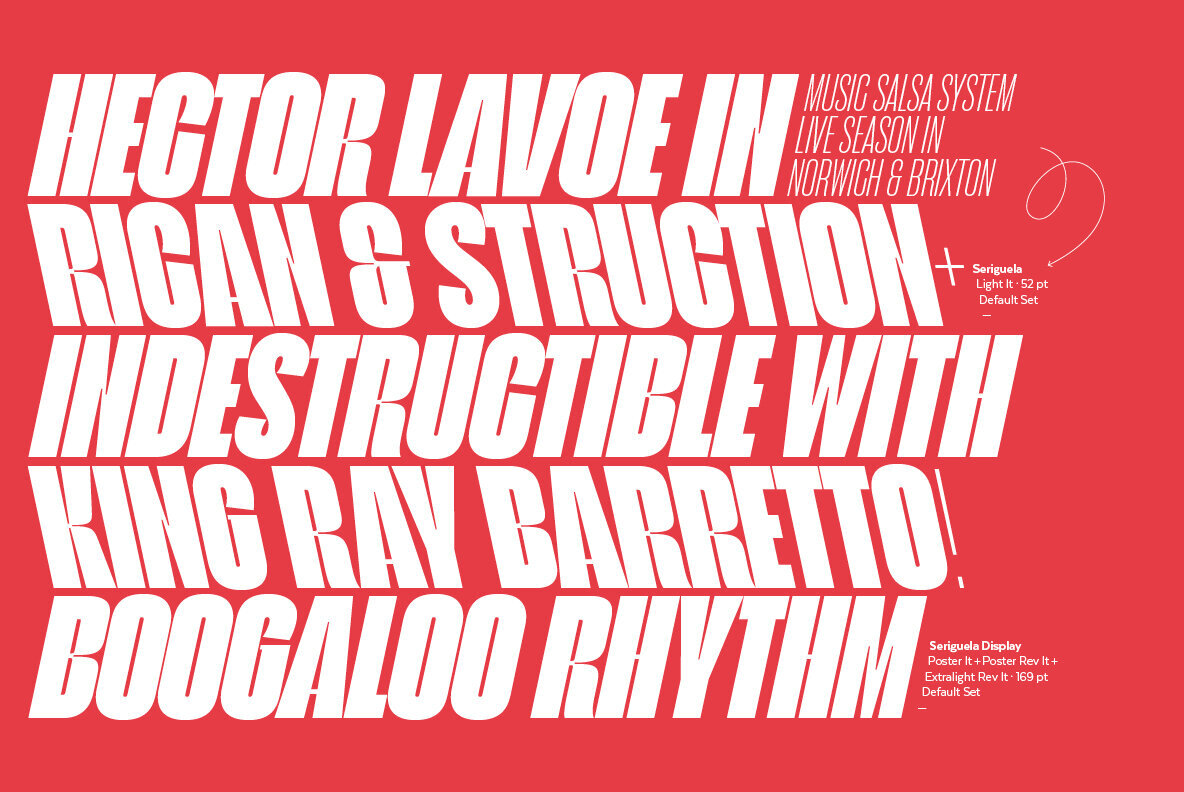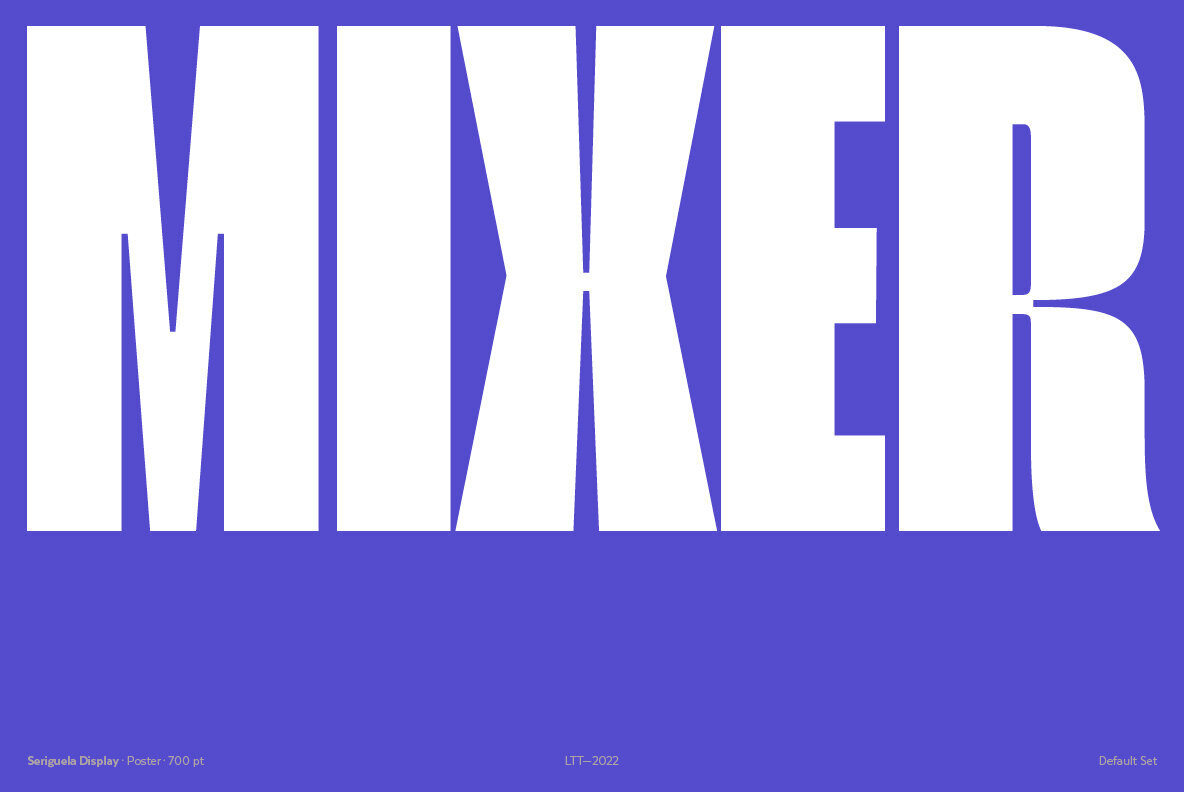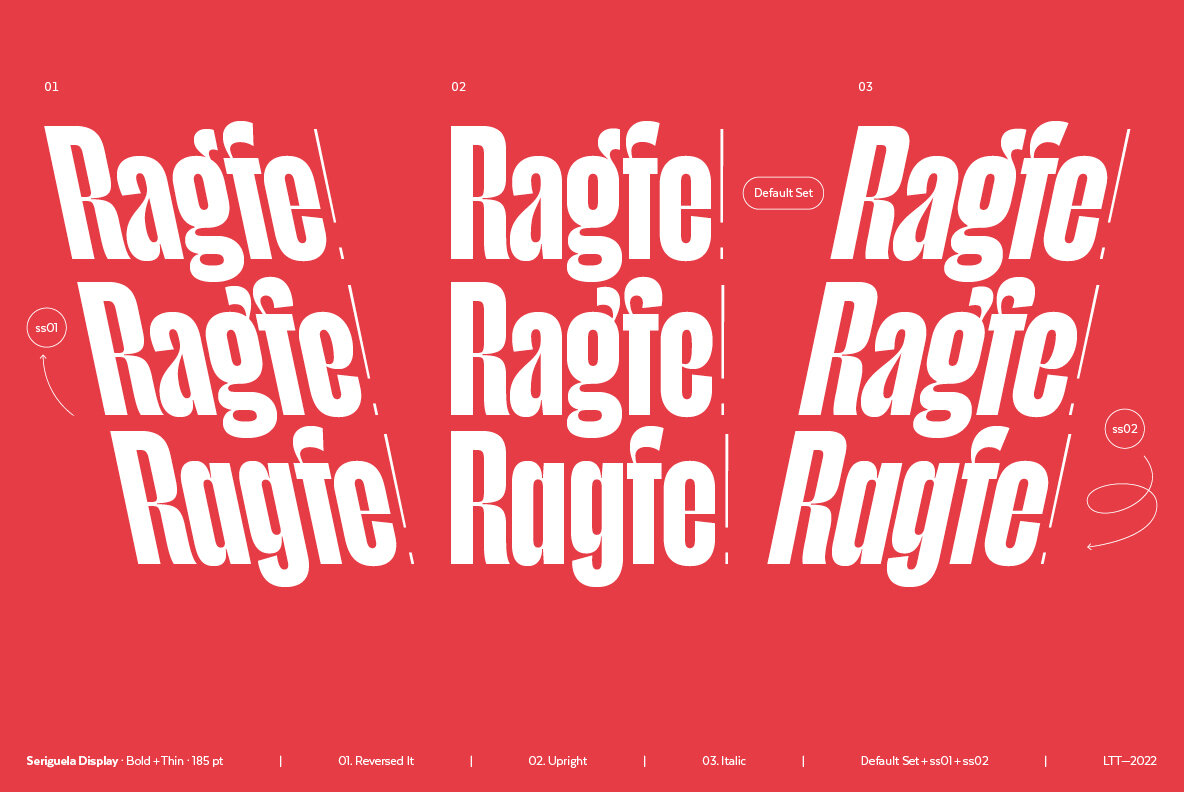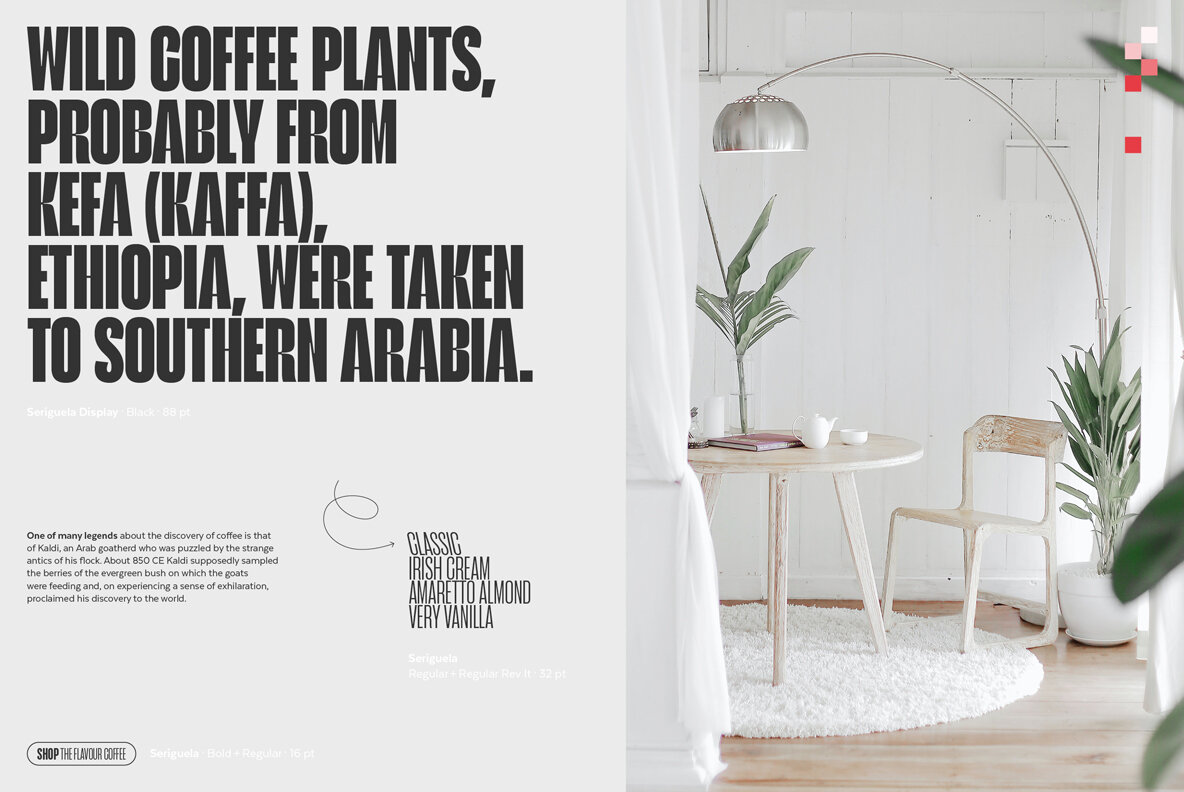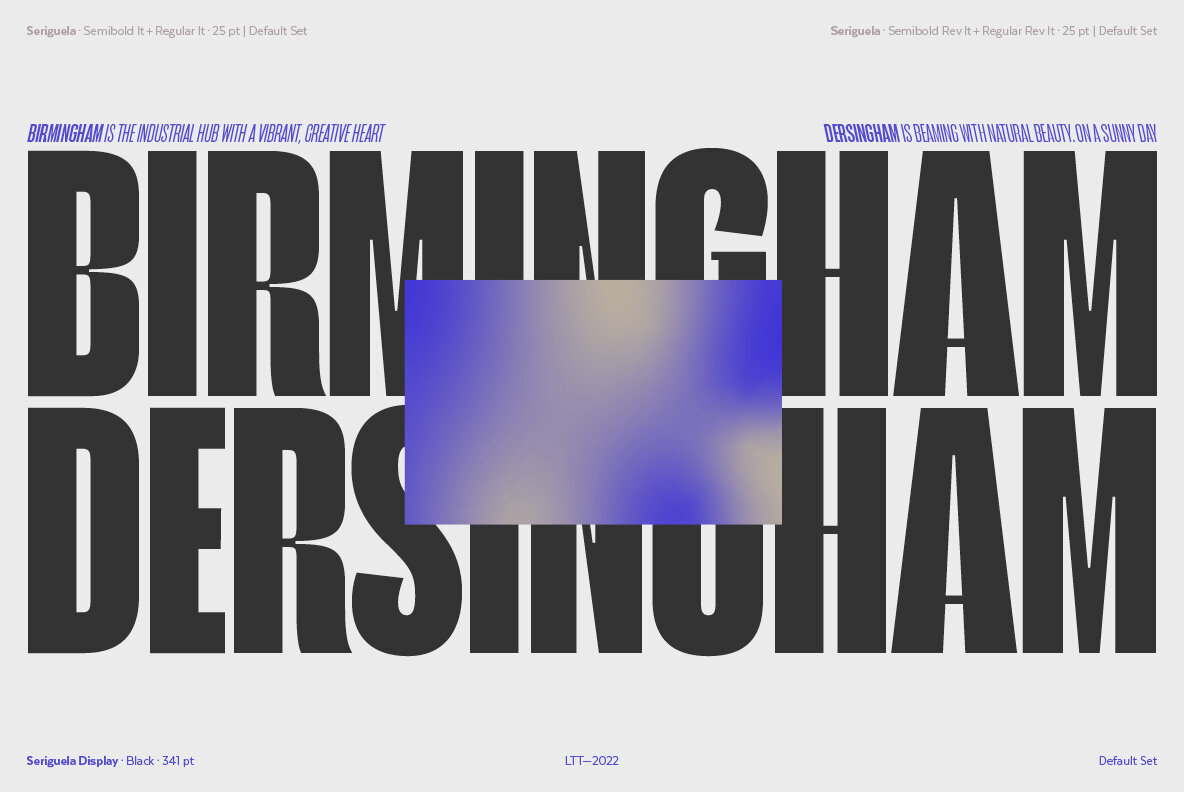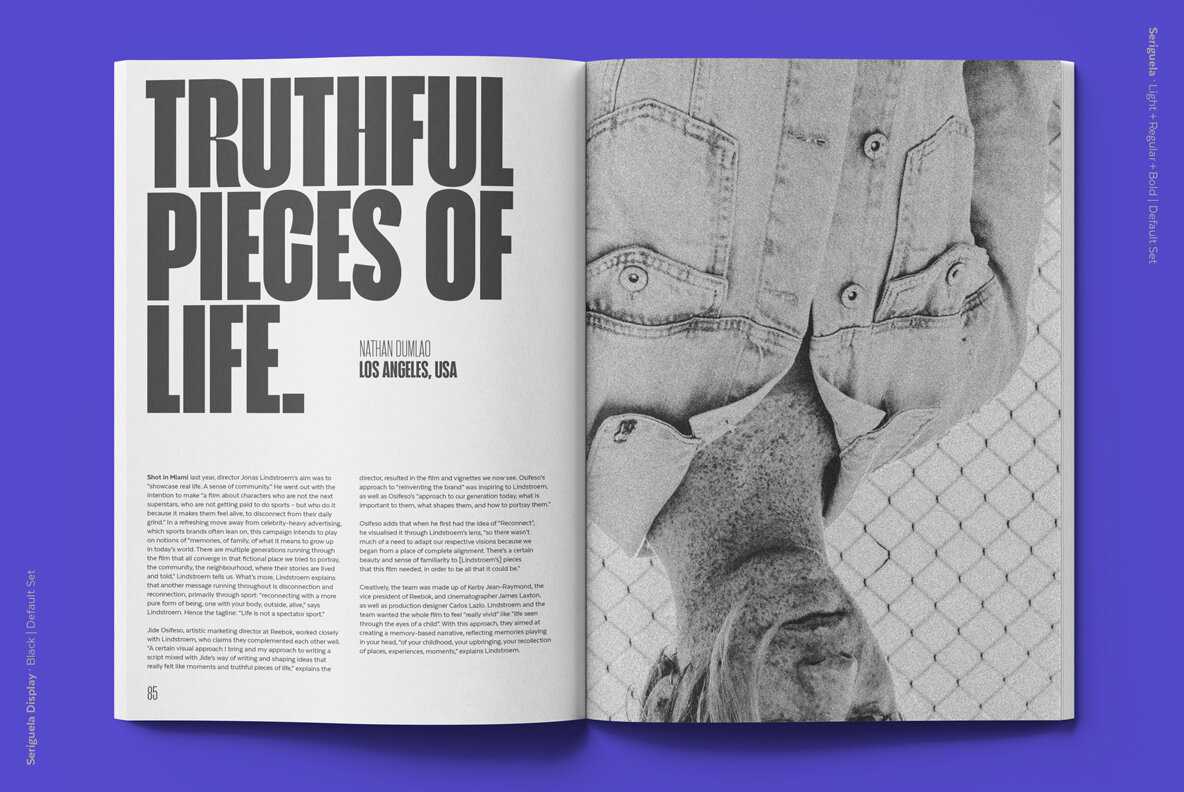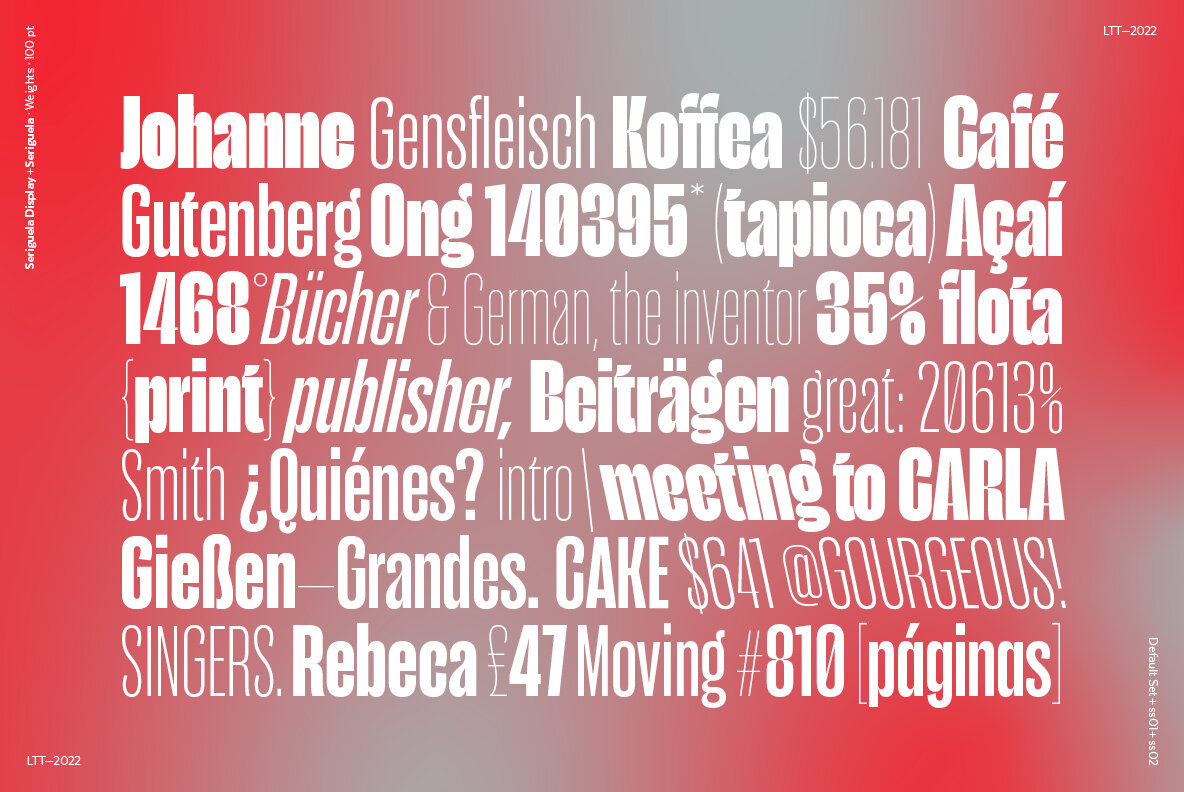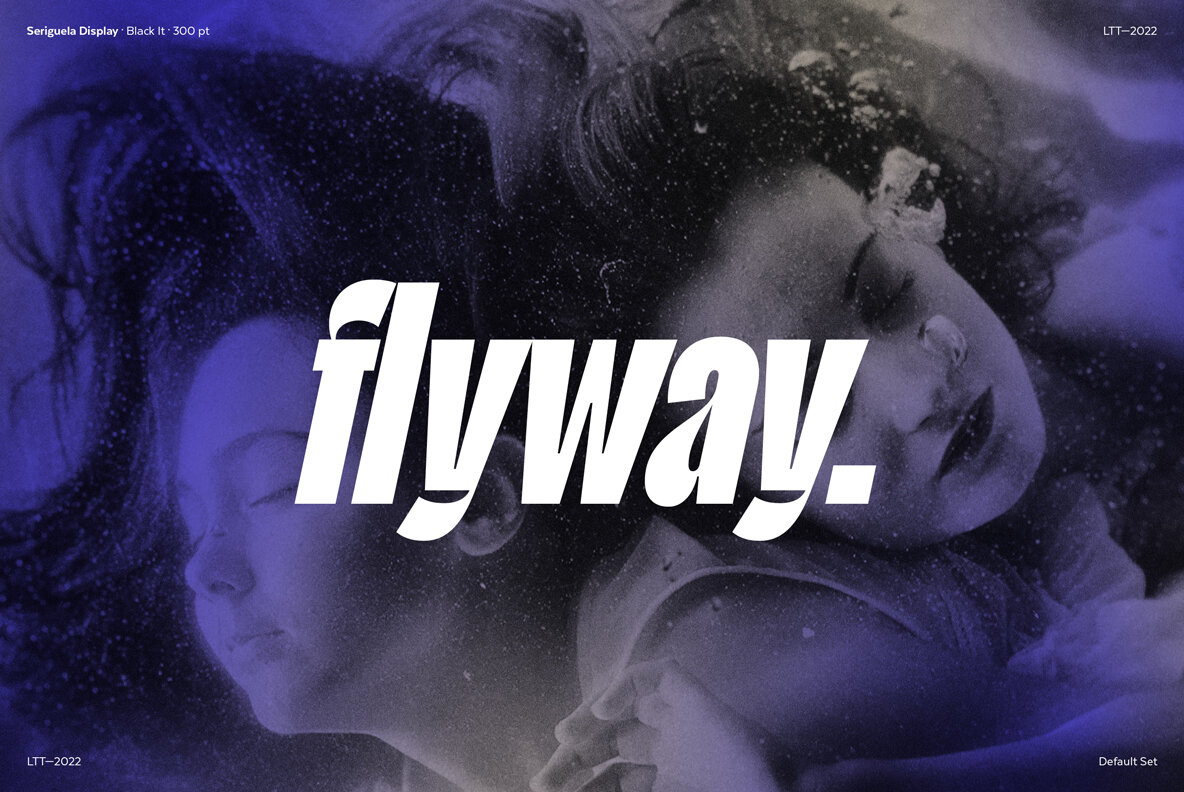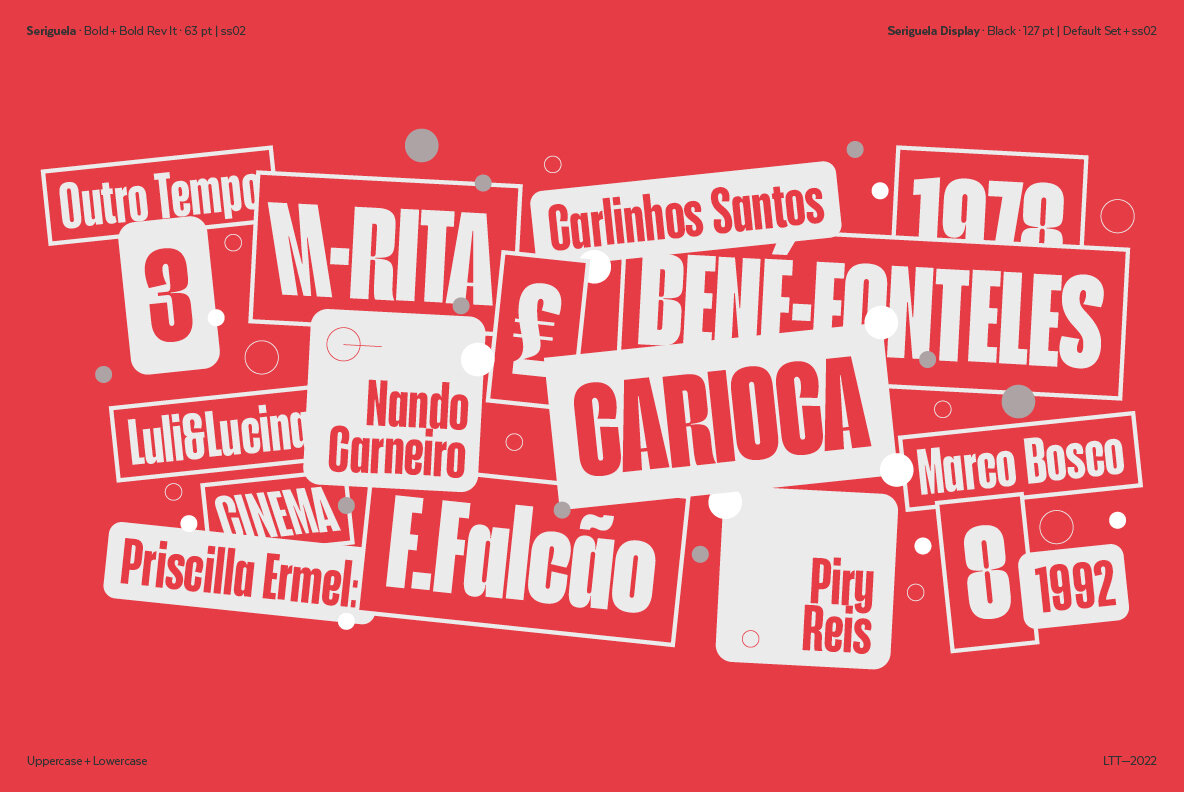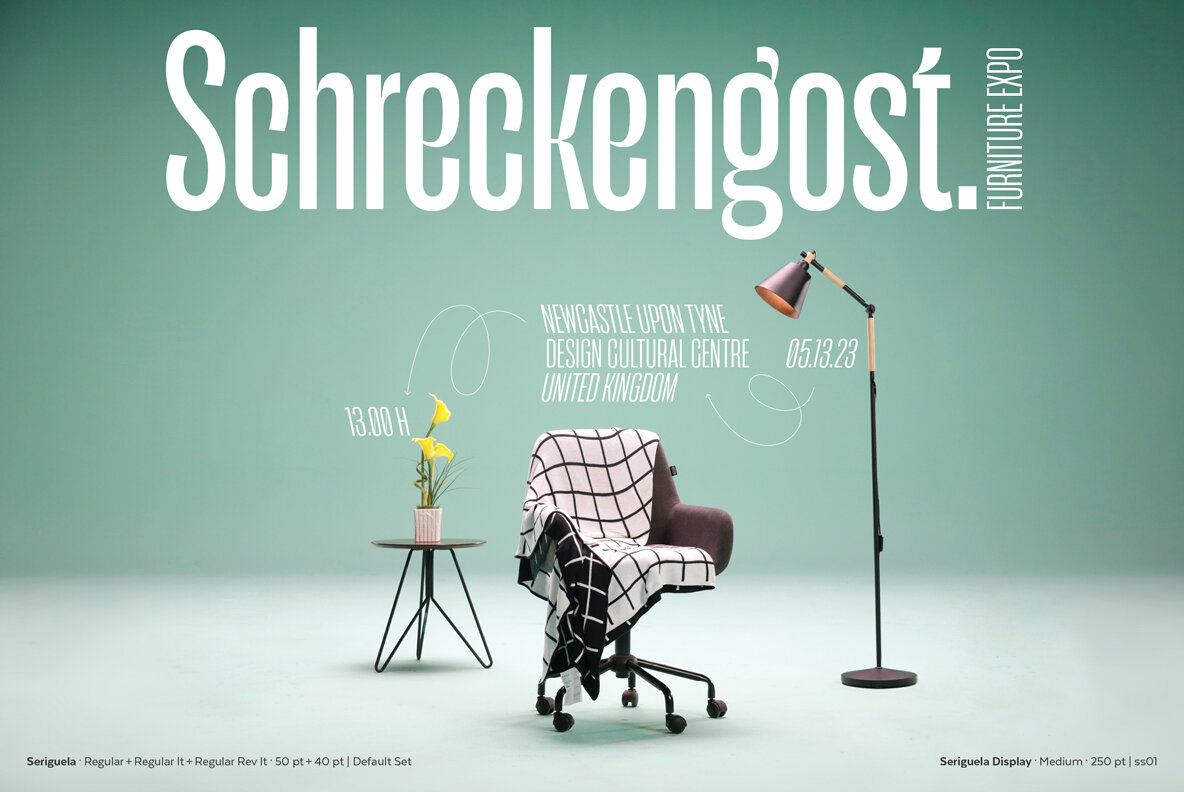
Seriguela Font
Seriguela is an ultra condensed sans serif typeface with a unique personality. It comes in normal and display versions, each with 9 weights, as well as italics and reverse italics totaling 54 fonts.
Seriguela is flavor in motion and each part of its system works together to captivate you, combining emotion and usability, allowing you to create attractive and unique designs.
Seriguela followed a very distinctive recipe to design its alphabet: it started with a grotesque base and applied movement and joy in a very original way. The blacker and more contrasted, the tastier.
The contrast in its display version is one of the most important features of Seriguela: the unconventional relationship between thick and thin lines, as it does not strictly follow any historical model of contrast construction and makes it noticeable. Its high contrast is not present in every single character and it is often in the “wrong” places.
The original charm of Seriguela is maintained throughout all its styles. With peculiar details: the verticality and its proportions, as well as terminals that resemble hooks in some curves, a characteristic that breaks with the vertical modular rhythm.
Seriguela is a versatile font system, designed primarily for display uses with a need of visual impact.